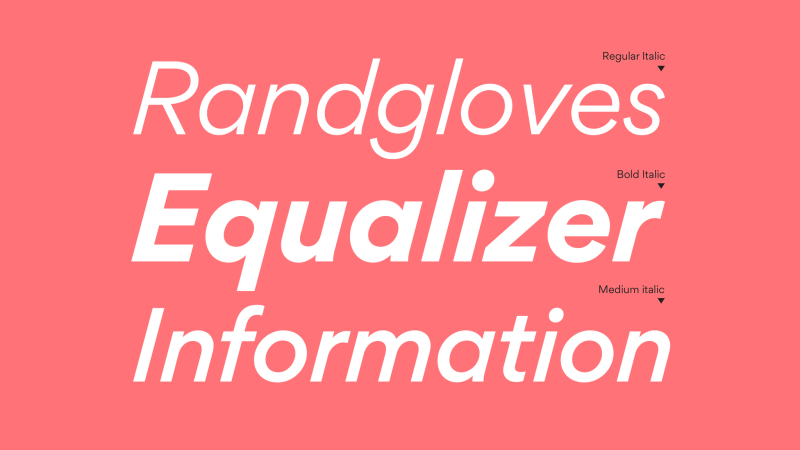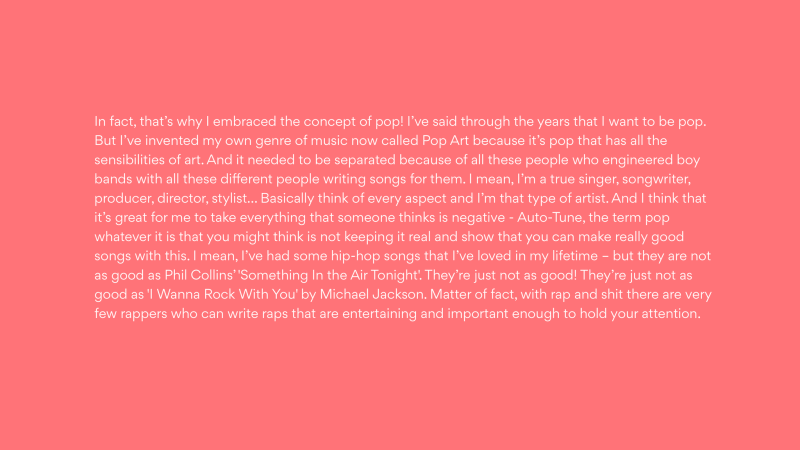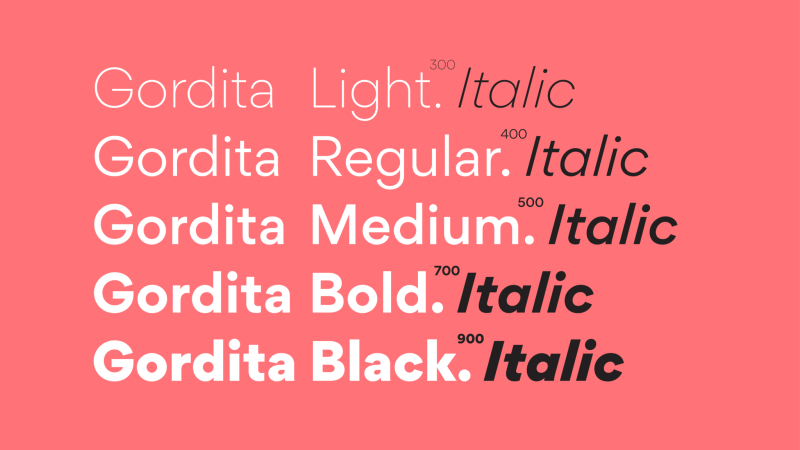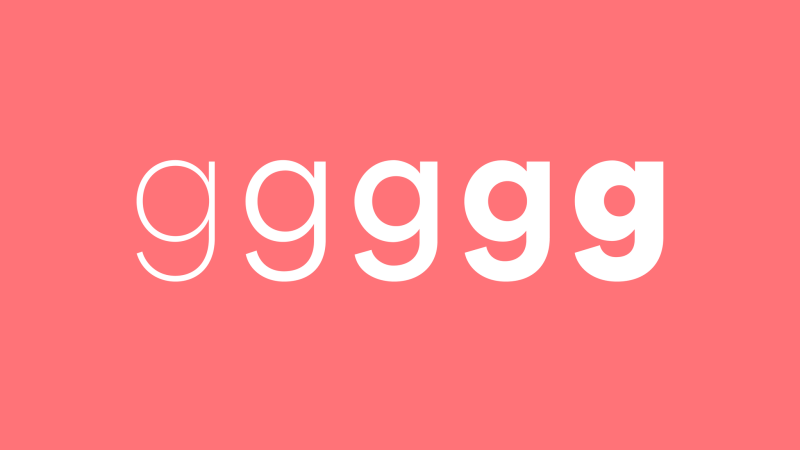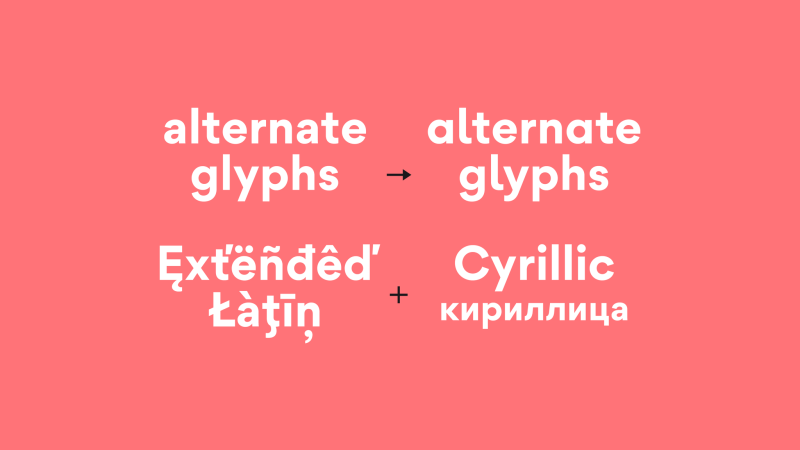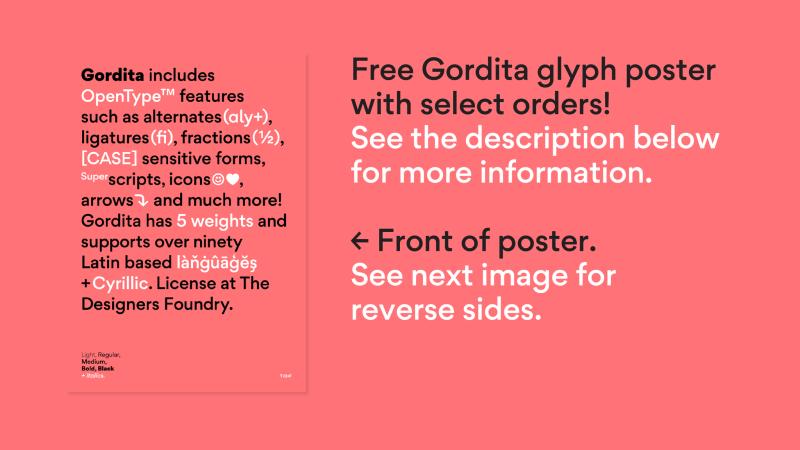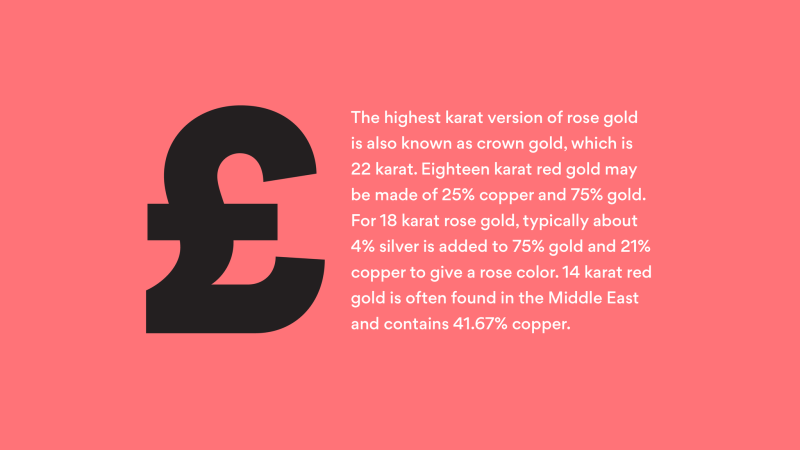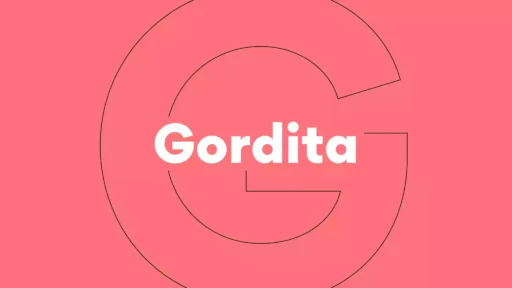
Gordita Font
Gordita is a minimalist sans serif font family by Thomas Gillett and lettering by iKern engineer. Gordita is a modern typeface that merges efficiency and simplicity with the complex features of today’s typography trends. Most of the shapes in Gordita resemble geometric patterns and its typeface is reminiscent of Futura and Gotham types with slight modern additions that make the cafe appear more welcoming and relatable. Due to its flexibility, it can be used in many contexts, such as logotype, newspaper and magazine design, and website and advertisement design.
The geometric premise of Gordita sets up a clean and organized design sensibility that is instantly classic yet contemporary. This underlying structure helps to maintain aesthetic and spatial consistency across the typeface, thus giving the impression of coherence and legibility.
Although Gordita draws its source from geometrical shapes, it does not turn its back on certain contemporary nuances. These are subtle considerations which make the typeface less stiff and formal, giving it a character of its own. Overall, the culmination is a work with a pleasant and unpretentious appearance. By offering such a vast choice of weight, Thin to Black, Gordita allows designers to use typographical high-low visual contrast effectively. Whether you’re capturing subtitles or going for some statement headlines, Gordita has a weight that will fit you. Each weight is coupled with the matching italics to provide increased versatility and an extended range of possible applications.
Gordita Font is recognisable and readily available for support of over two hundred languages with an extended Latin and Cyrillic character set. Subsequent improvements have added Thin and Ultra styles, optimized apertures for even better readability, as well as new shapes of characters, and advanced OpenType functions. Gordita can handle any design venture you may have, either in print or on any digital platform.
Gordita’s flexibility, however, cannot be questioned, meaning that it’s a great tool for any kind of design work. This is due to the coalescence of its roots in tradition and the ability to embrace modern influences. The geometric base brings a structural, faceted construction of the timeless design, and new elements give it warmth and character. This approach ensures Gordita can easily switch between different uses ranging from the seriousness of the business identity to the fun-loving world of magazine-like press.
Moreover, it has a broad weight range, supports various languages, and has numerous small technological features, which include optical compensations and elaborated apertures, making the font look remarkably good when used in various contexts. Be it for building a professional-looking website or a colourful and cheerful poster, Gordita’s flexibility ensures designers can come up with designs that will make a lasting and powerful impression.
Gordita Font is a Sans Serif Fonts font that brings a professional and versatile look to your projects. Gordita is a minimalist sans serif font family by Thomas Gillett and lettering by iKern engineer.